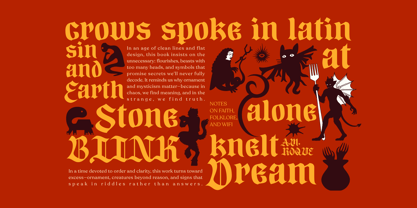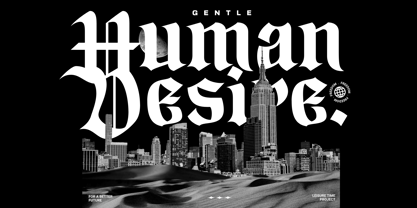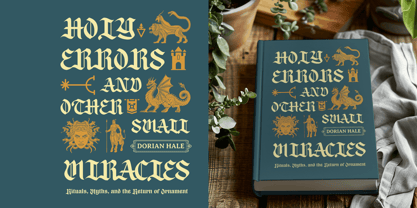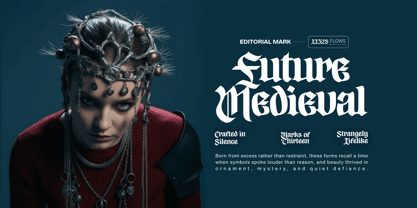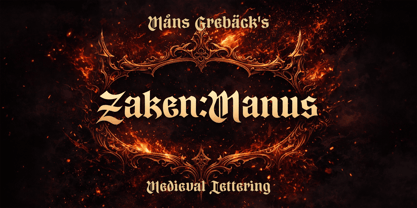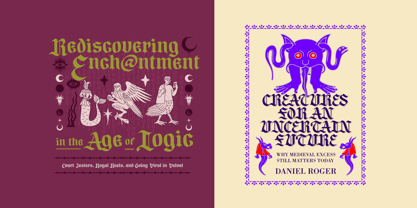
Zaken Manus
La famille de polices Zaken Manus a été conçue par Måns Grebäck et publiée par Mans Greback. Zaken Manus contient 4 styles et options de package familial. En savoir plus sur cette famille
Zaken-Manus is a medieval blackletter font with a commanding and deliberate presence. Its letterforms are rooted in manuscript tradition, with sharp angles, heavy strokes, and a steady rhythm that gives the text a sense of authority. The shapes feel carved and intentional, balancing ornament with clarity, and creating a texture that is dense without becoming chaotic. Capitals stand firm and ceremonial, while lowercase letters keep a controlled flow that works well in both short phrases and longer settings. Zaken-Manus was designed to feel like it belongs to illuminated pages and solemn decrees, where every word carries weight. It reflects an interest in historical lettering, not as a replica, but as a living form adapted for modern typesetting while keeping its medieval backbone intact. The font is built with advanced functionality and guaranteed top-notch quality, containing stylistic and contextual alternates, ligatures and more automatic and manual features; all to give you full control and customizability. It has extensive lingual support, covering all Latin-based languages, from North Europa to South Africa, from America to South-East Asia. It contains all characters and symbols you'll ever need, including all punctuation and numbers. Zaken-Manus is drawn with care for structure and balance, focusing on strong silhouettes and consistent proportions. The goal was to create a typeface that feels authentic and grounded, while remaining practical and readable for contemporary use.